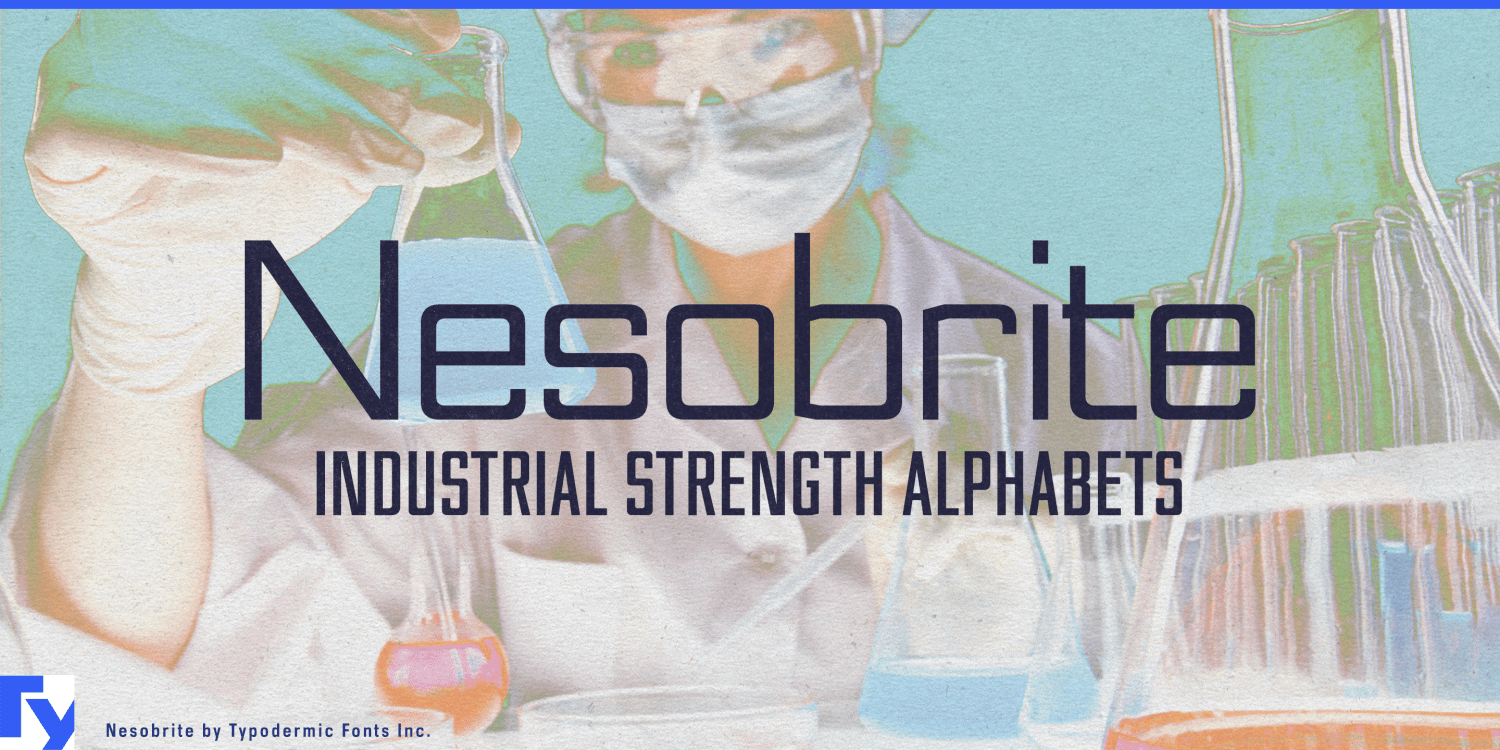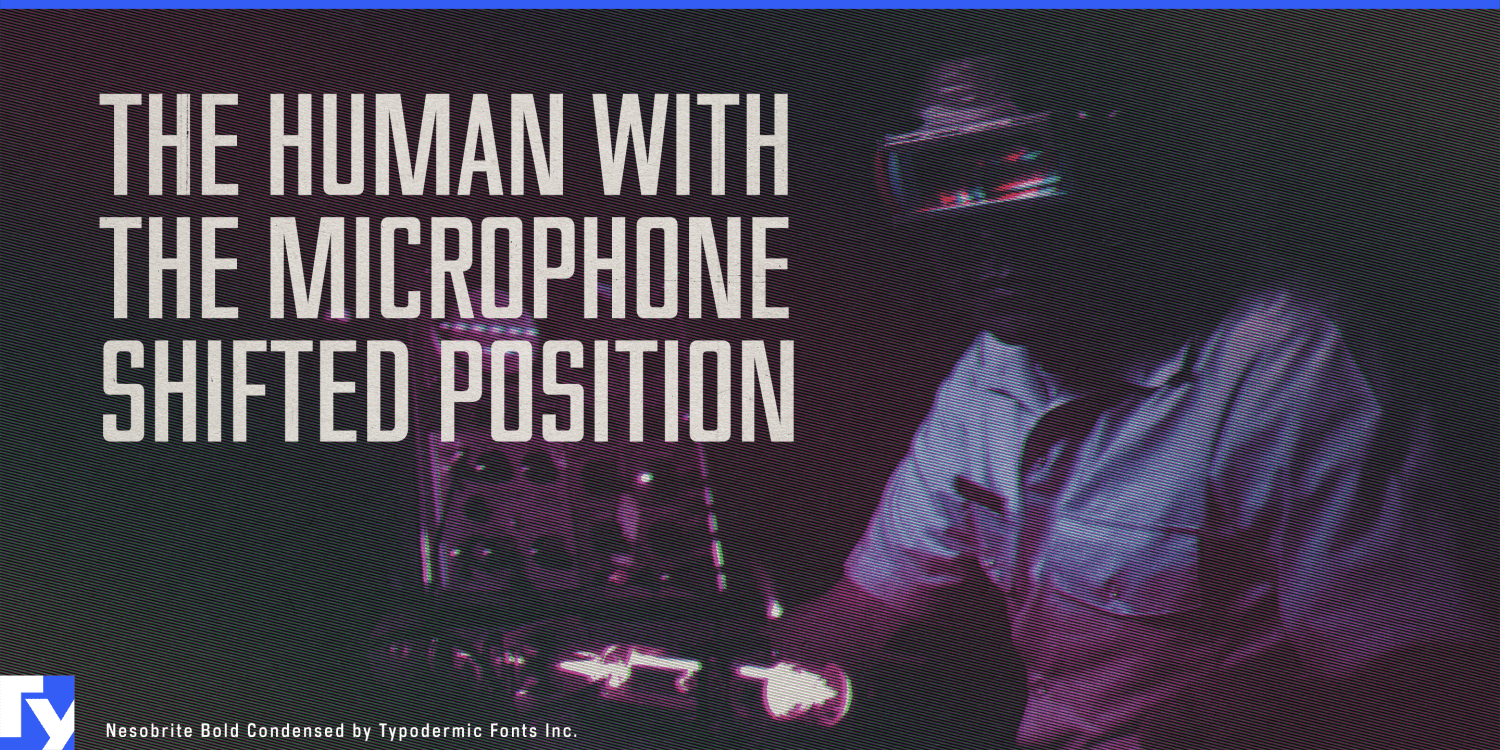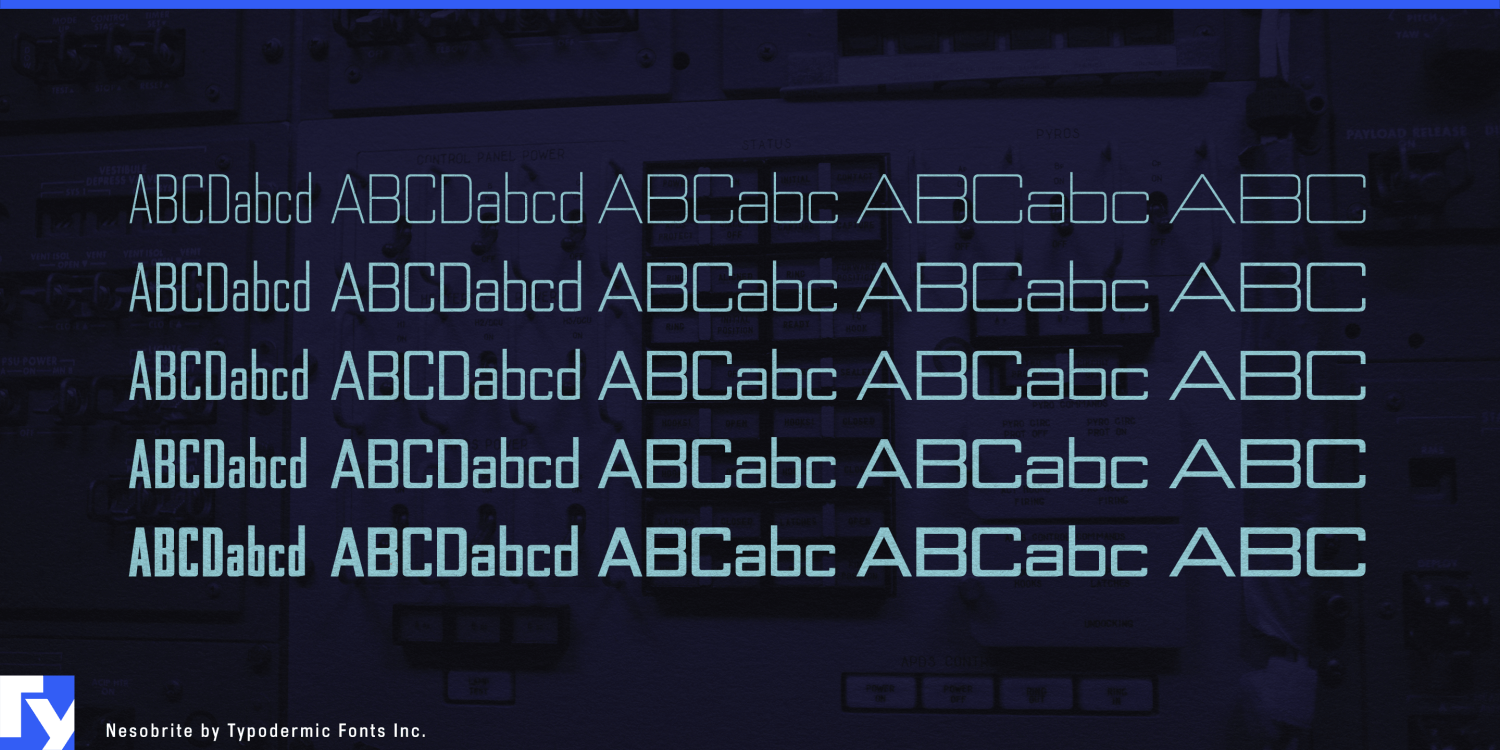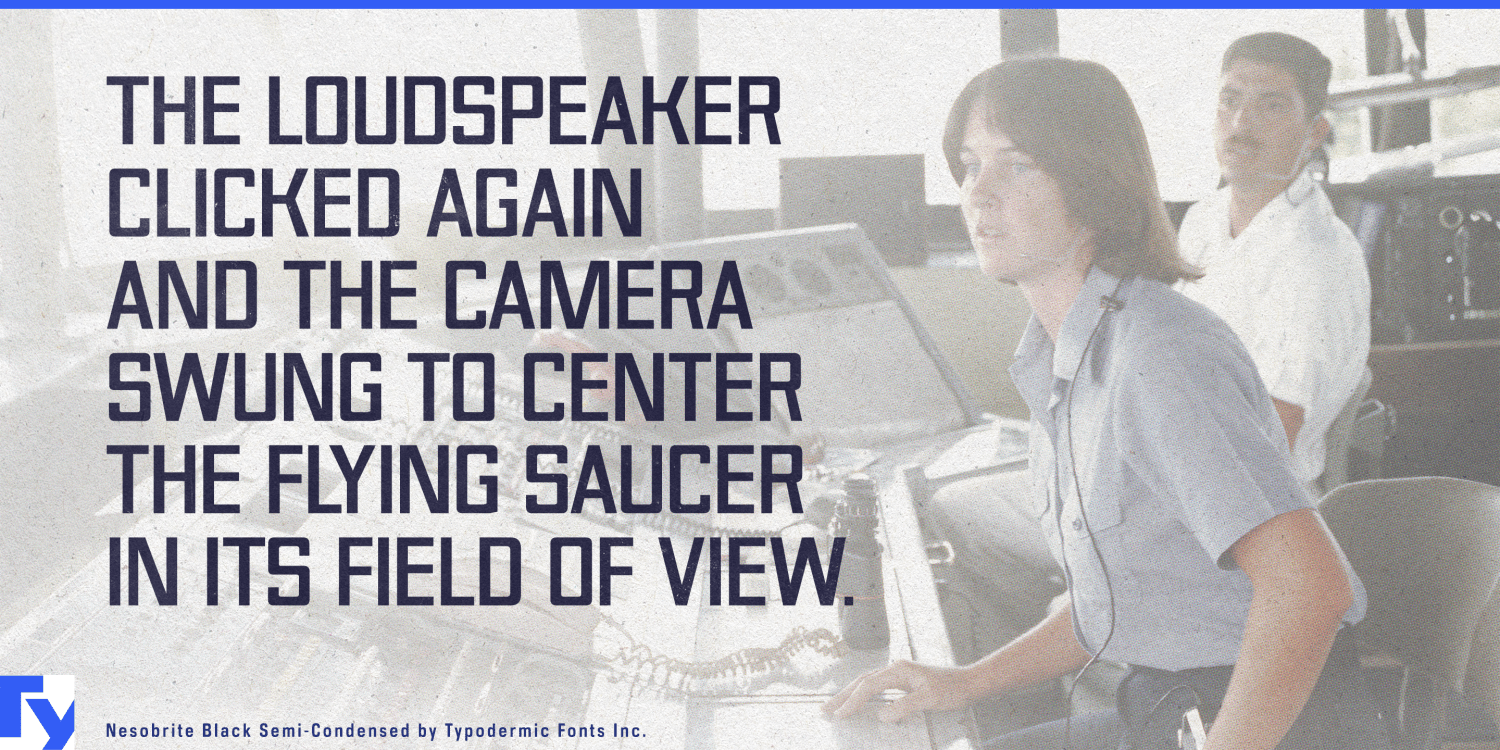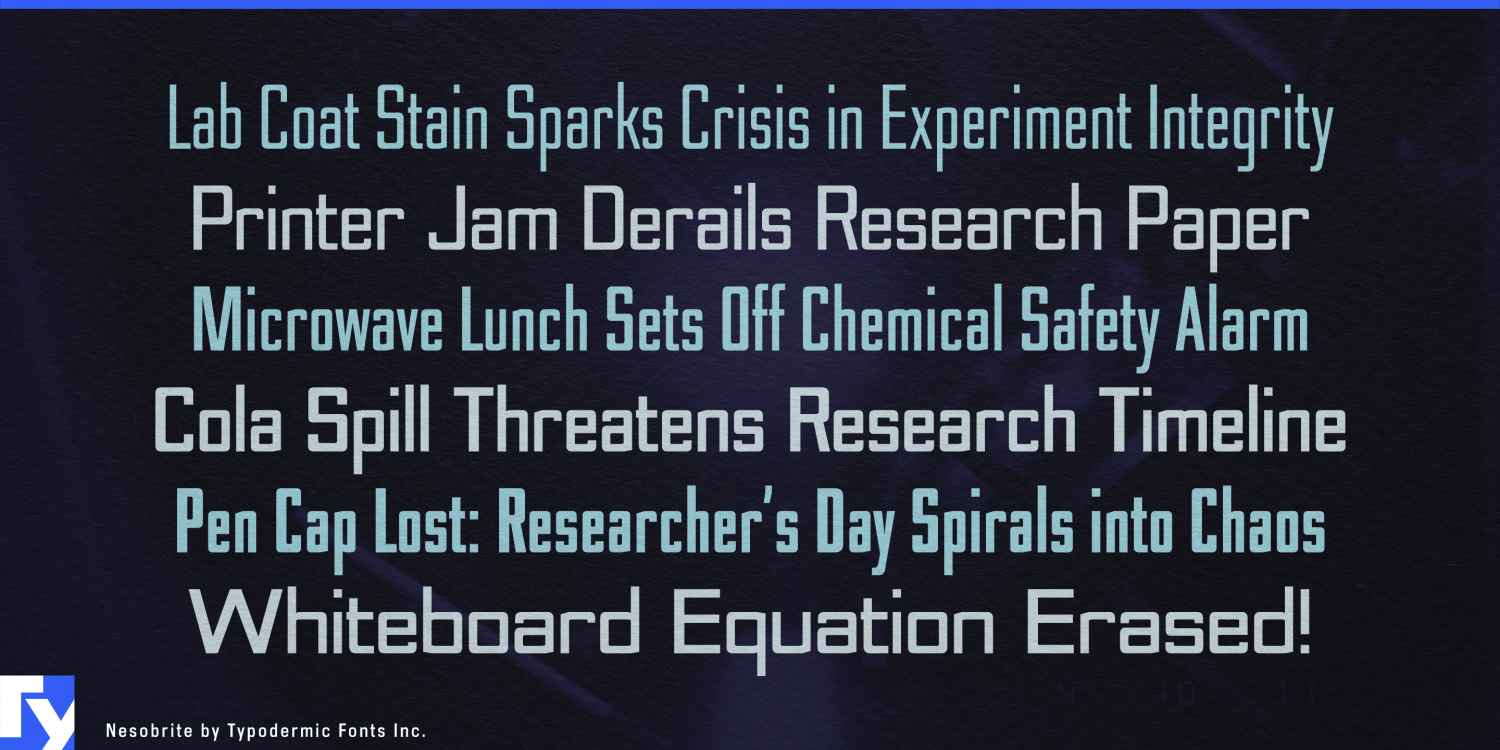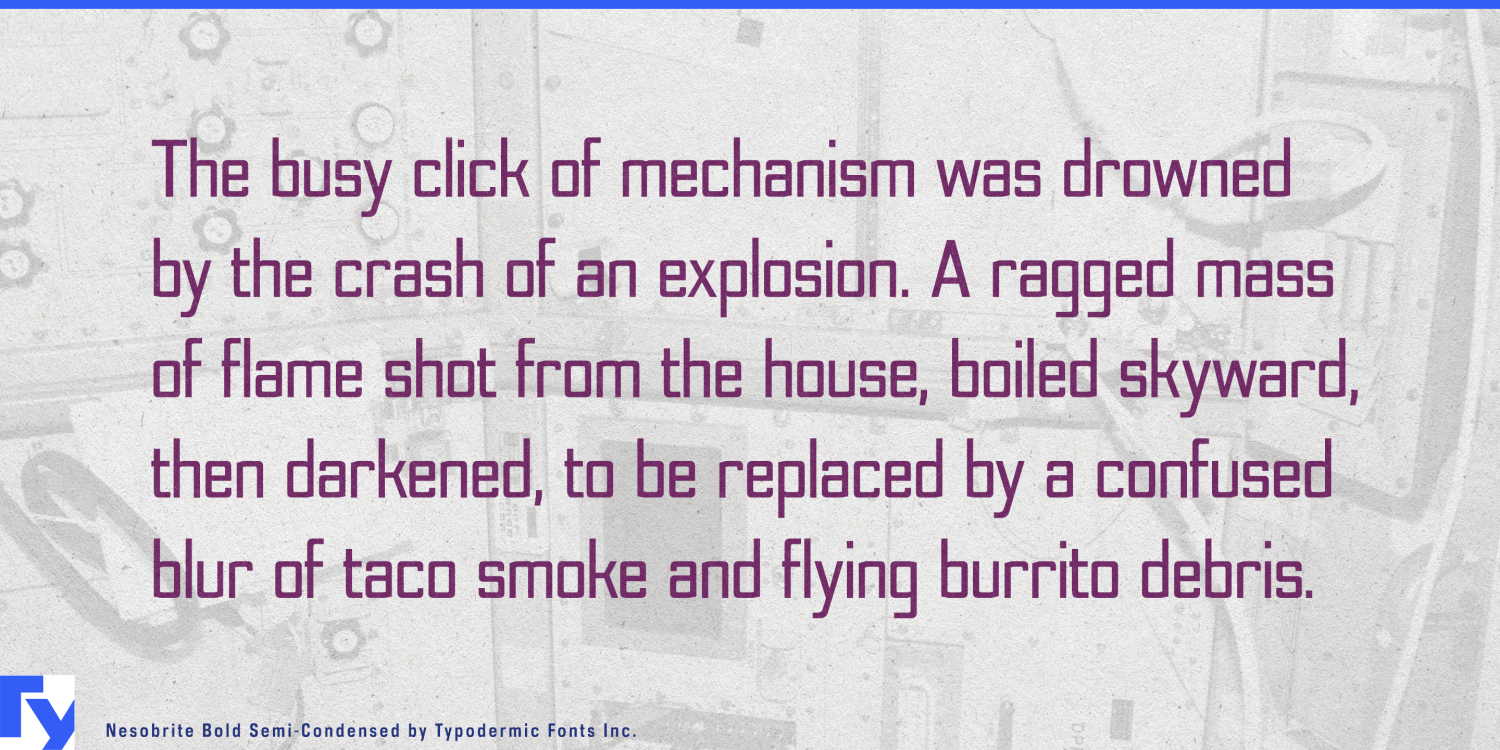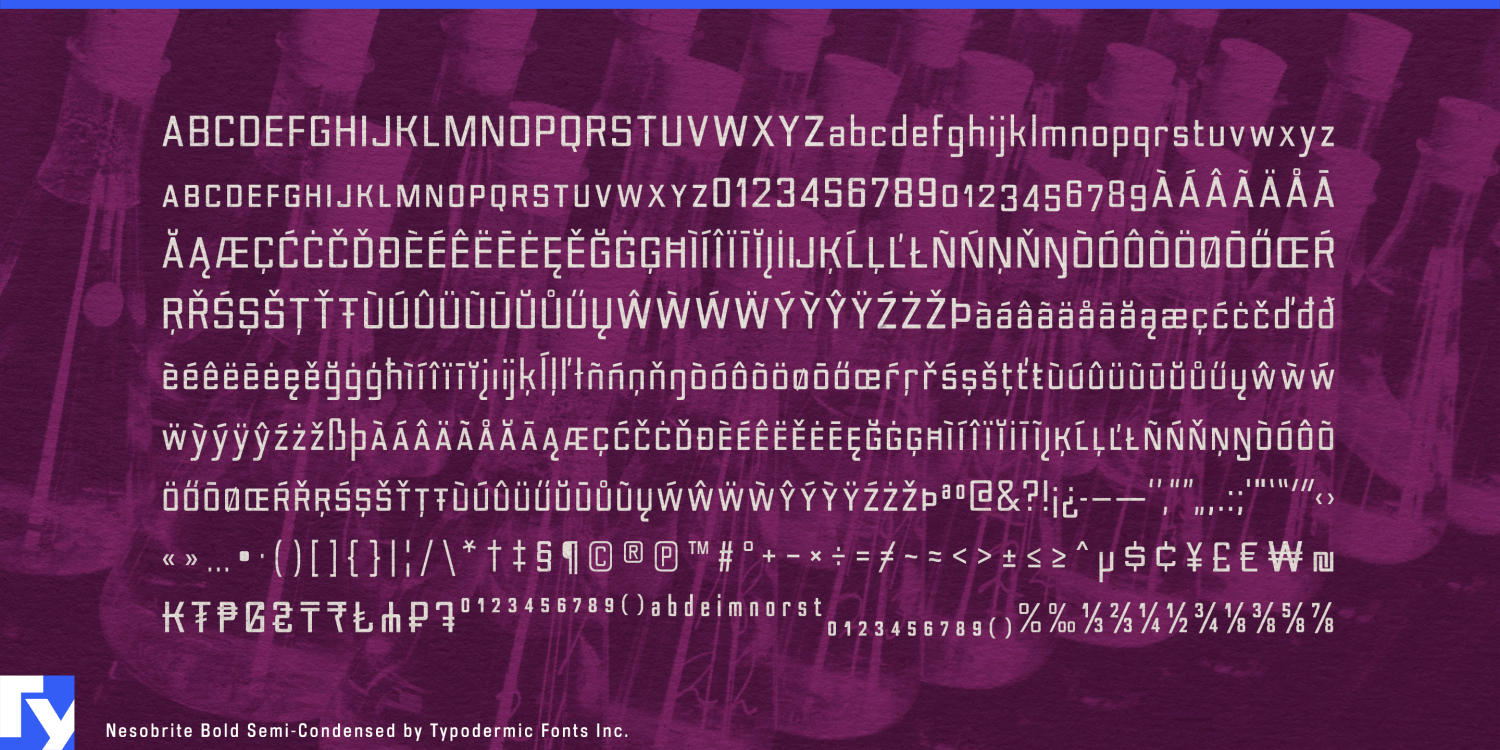
Nesobrite
Font Family by Typodermic
Technical typography does not always benefit from getting heavier. On an instrument panel, laboratory system, diagnostic interface, or precision device, an oversized black weight can overpower the readings, diagrams, controls, and status information that actually matter. Nesobrite takes a more measured approach. Its square construction provides a strong technological identity, but even the darkest styles remain relatively open, creating emphasis without turning every heading into a block of ink.
Rigid verticals, squared bowls, a tall x-height, and modular forms give words an engineered rhythm. Multiple widths and matching italics let that structure adapt across equipment fascia, narrow model names, presentation graphics, software headings, and technical diagrams. The range moves from fine analytical display typography to controlled heavy emphasis rather than chasing extreme weight.
Laboratory automation and scientific equipment are especially natural settings. Sample handlers, chromatography systems, spectroscopy instruments, environmental analyzers, materials-testing equipment, and laboratory robots all need typography for model names, platform labels, touchscreen headings, technical brochures, and conference displays. Nesobrite can distinguish the equipment family without competing with graphs, measurements, controls, and other functional information.
Biotechnology extends the same language into cell-analysis platforms, sequencing systems, synthetic-biology tools, automated bioprocessing, and laboratory data systems. Semiconductor testing and precision electronics provide another strong fit: wafer-inspection systems, probe stations, photonics instruments, RF measurement equipment, calibration systems, and precision power supplies often combine long model names with narrow panels and dense diagrams. Nesobrite’s width range lets those names compress when necessary without abandoning the larger visual system.
Space operations offer a related territory without requiring sci-fi theatrics. Satellite control systems, telemetry platforms, ground stations, tracking equipment, earth-observation systems, and spacecraft testing all need subsystem names, status headings, equipment labels, mission graphics, and technical presentations. Medical devices, building automation, process monitoring, and environmental-control systems can use the same restrained technical voice.
For entertainment, Nesobrite can shift from engineering into procedure. Forensic thrillers, surveillance dramas, scientific mysteries, and investigation games can use its narrower styles for case numbers, evidence-system headings, map overlays, dossier graphics, and analytical interfaces.
Nesobrite is not built around brute-force display weight. Its strength is controlled emphasis: an engineered display voice for laboratories, precision electronics, space operations, medical devices, industrial controls, and other information-rich technical environments.